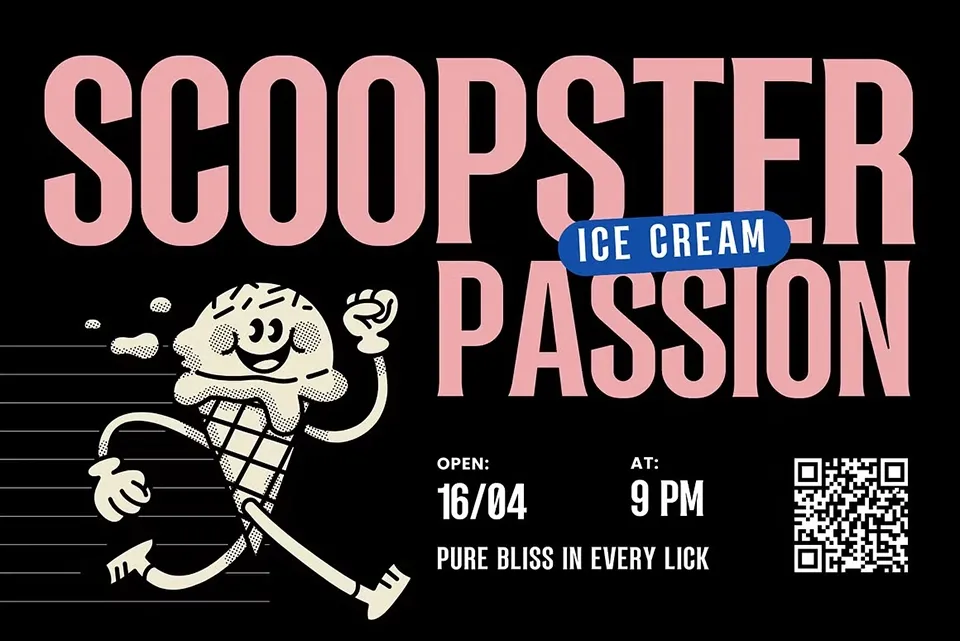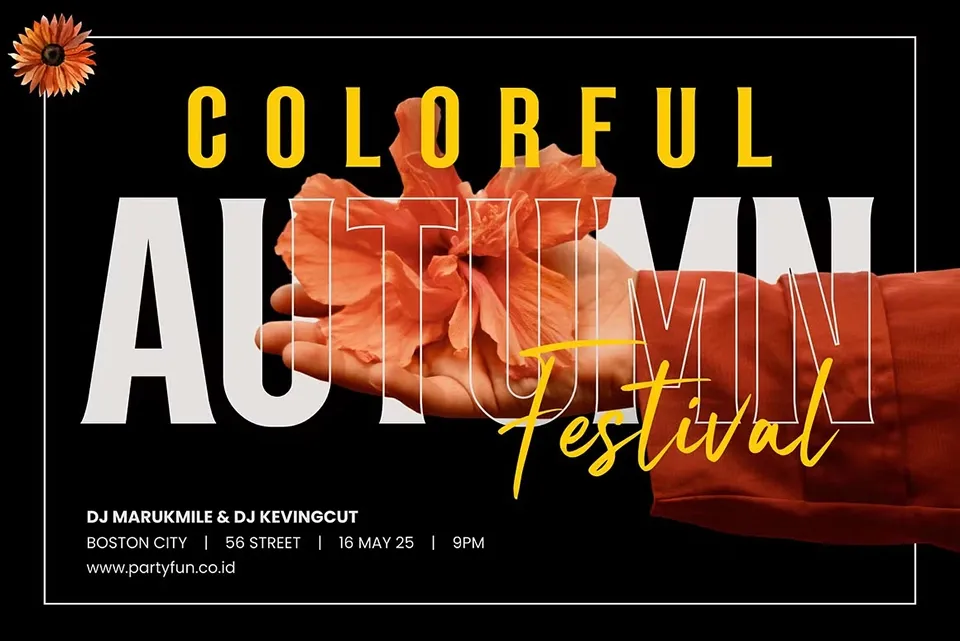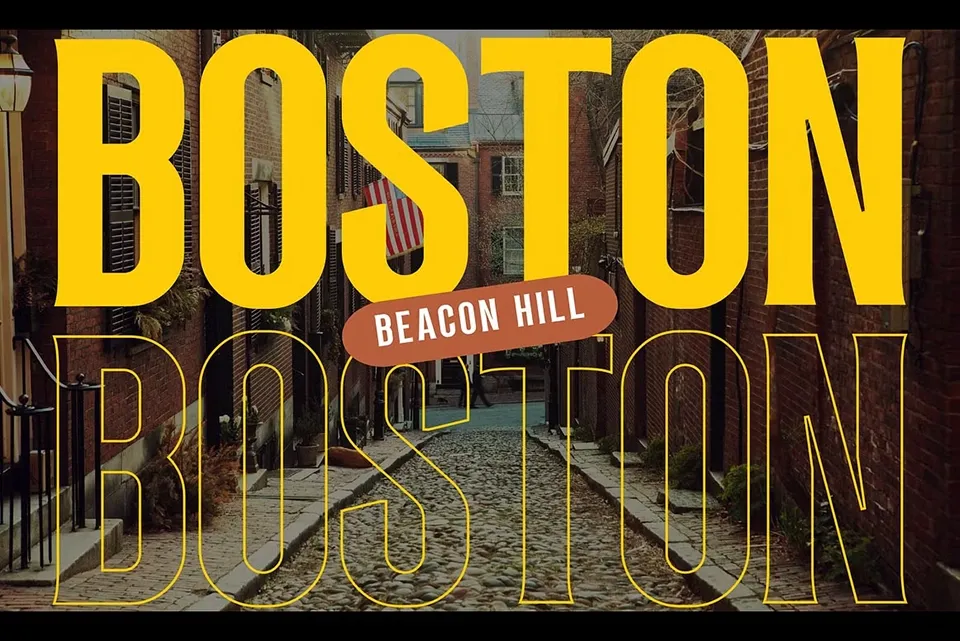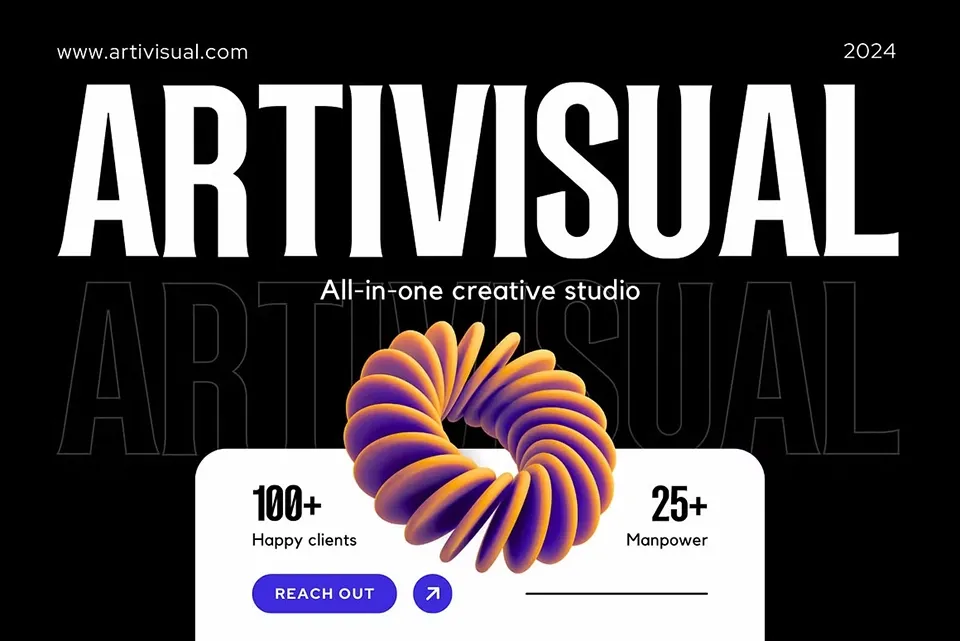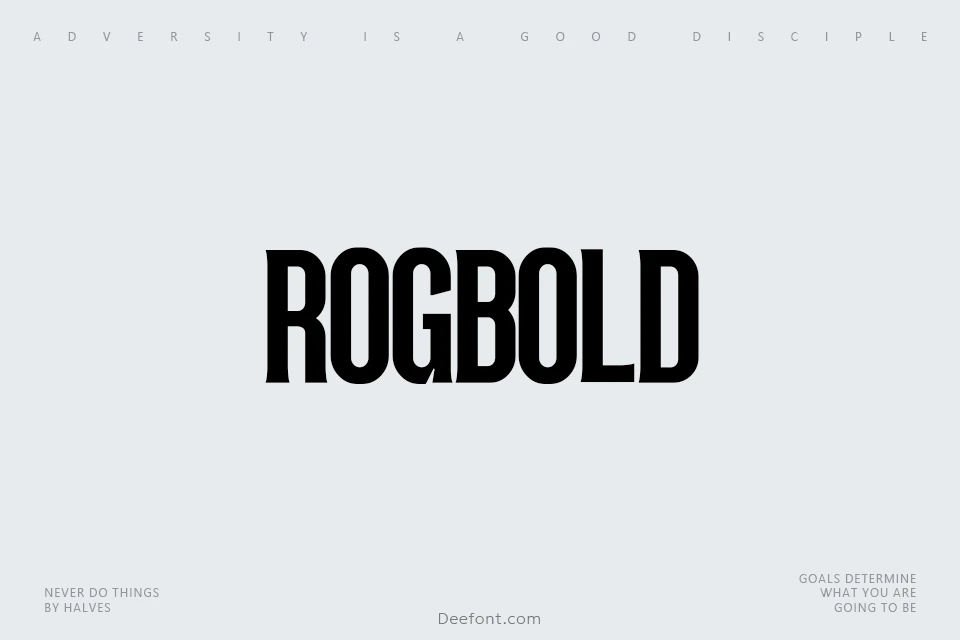
Rogbold Font
Rogbold Font is a modern condensed font designed for impact. As the name suggests, it features bold, sans-serif letterforms with a notably tall and narrow structure, creating a strong, assertive look. The characters are tightly spaced, contributing to its condensed feel and making it effective for powerful headlines and displays. Rogbold includes 294 glyphs and offers multilingual support, adding to its versatility. Released in 2024, this typeface is ideal for projects requiring a contemporary, impactful, and space-efficient typographic style, such as posters, branding, logos, and editorial design.